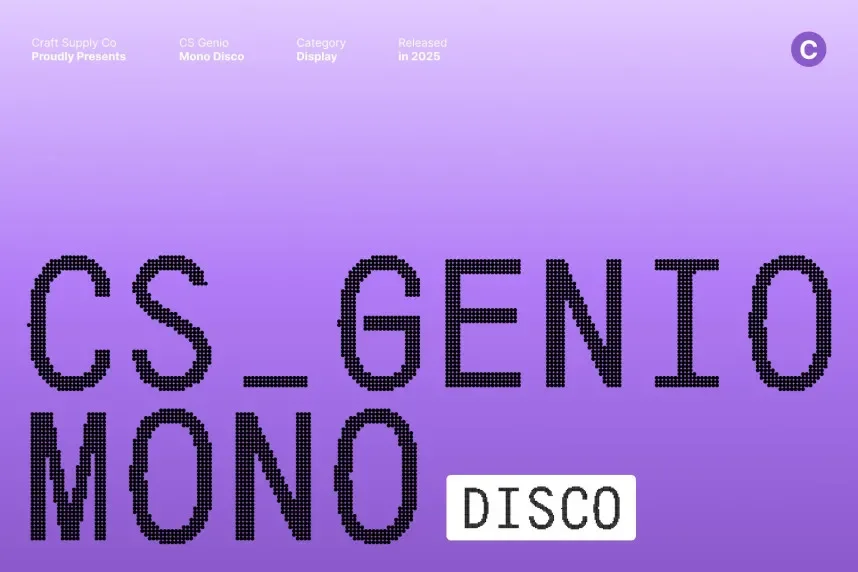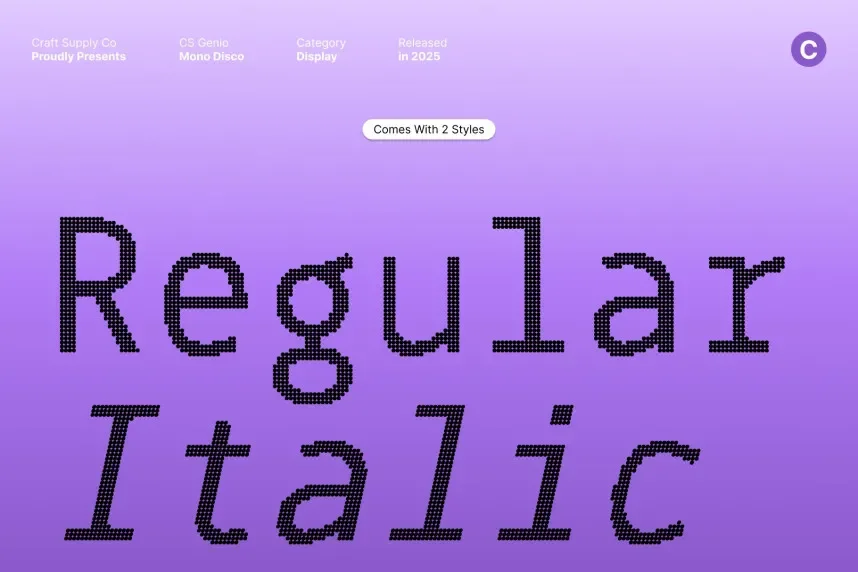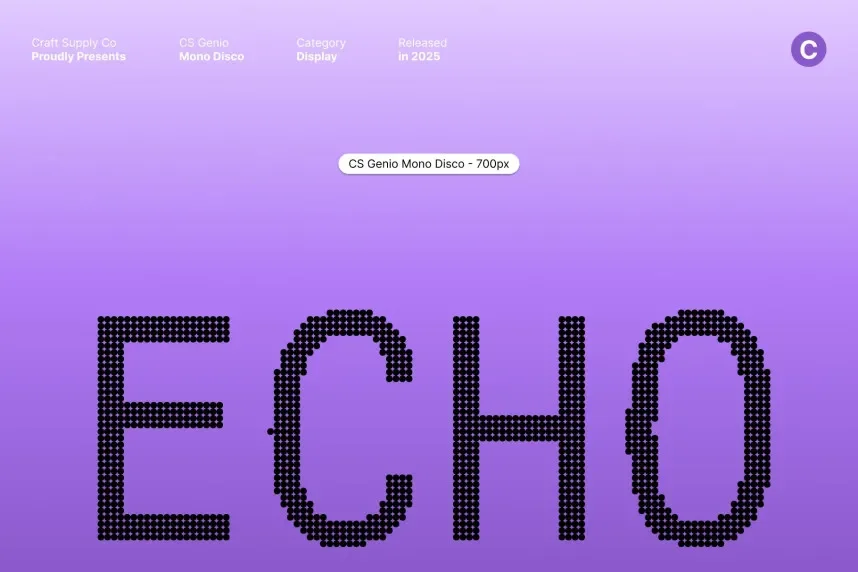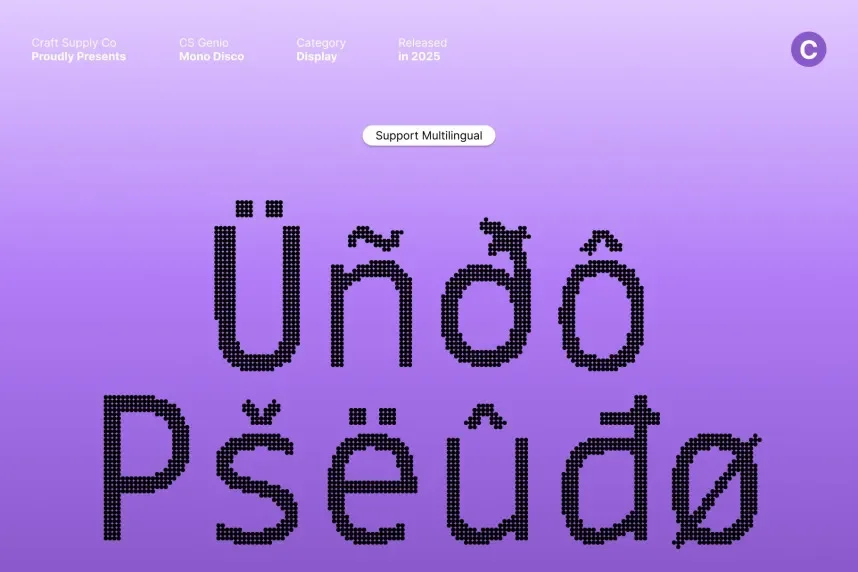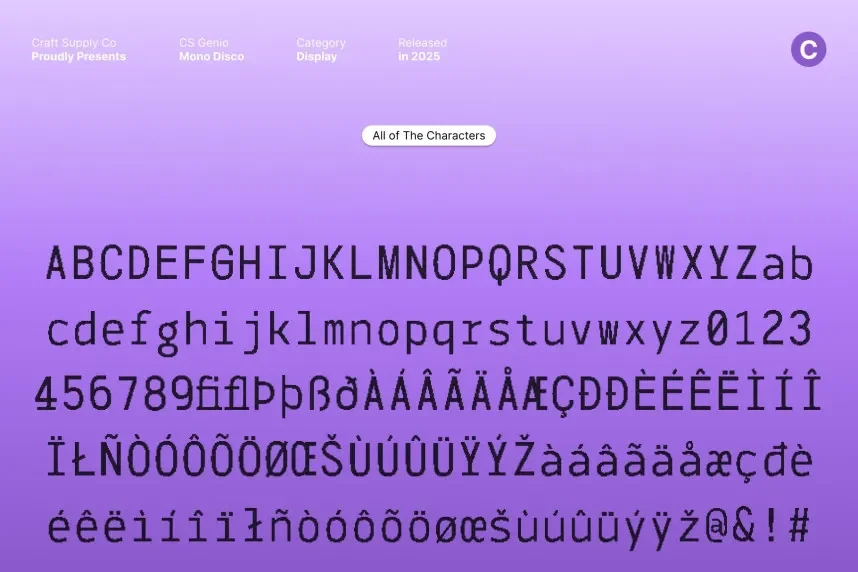
CS Genio Mono Disco Font is a monospaced typeface designed for projects requiring both retro flair and readability. The font’s geometric structure and consistent letter spacing make it ideal for code, digital interfaces, and vintage-styled design projects. With its unique letterforms and bold strokes, it provides a balanced appearance that works well in both large headings and smaller body text.
This font is best suited for technology-related branding, digital signatures, and retro-inspired designs like posters or album covers. Pair it with simple sans-serif fonts for readability. CS Genio Mono Disco Font is available in TTF and OTF formats, and it includes a commercial-use license. Always check the license for commercial projects.